1. The HalloWitchZ Font
HalloWitchZ Display Font is an incredibly unique and interesting display font. Add this font to your creative Halloween themed ideas and notice how it will make them stand out!
2. The Halloween Font
Retro, vintage or grunge style display font for your new projects. Great for your Christmas or Halloween projects!
3. The Spooky Night Font
This font is an incredibly unique and interesting display font. Add it to your creative Halloween themed ideas and notice how it will make them stand out! The only limit is your imagination!
4. The Hallodeer Font
Inspired from Horror and Thriller movie posters back in old era, with bold and solid stroke styles that pointed to the instant-retro feels when you drop it to your vintage or retro design project.
Hallodeer makes a perfect font for your blog, social media, branding, poster, quotes, wedding card invitation, & so forth, you decide.
5. Twig Alleric Font
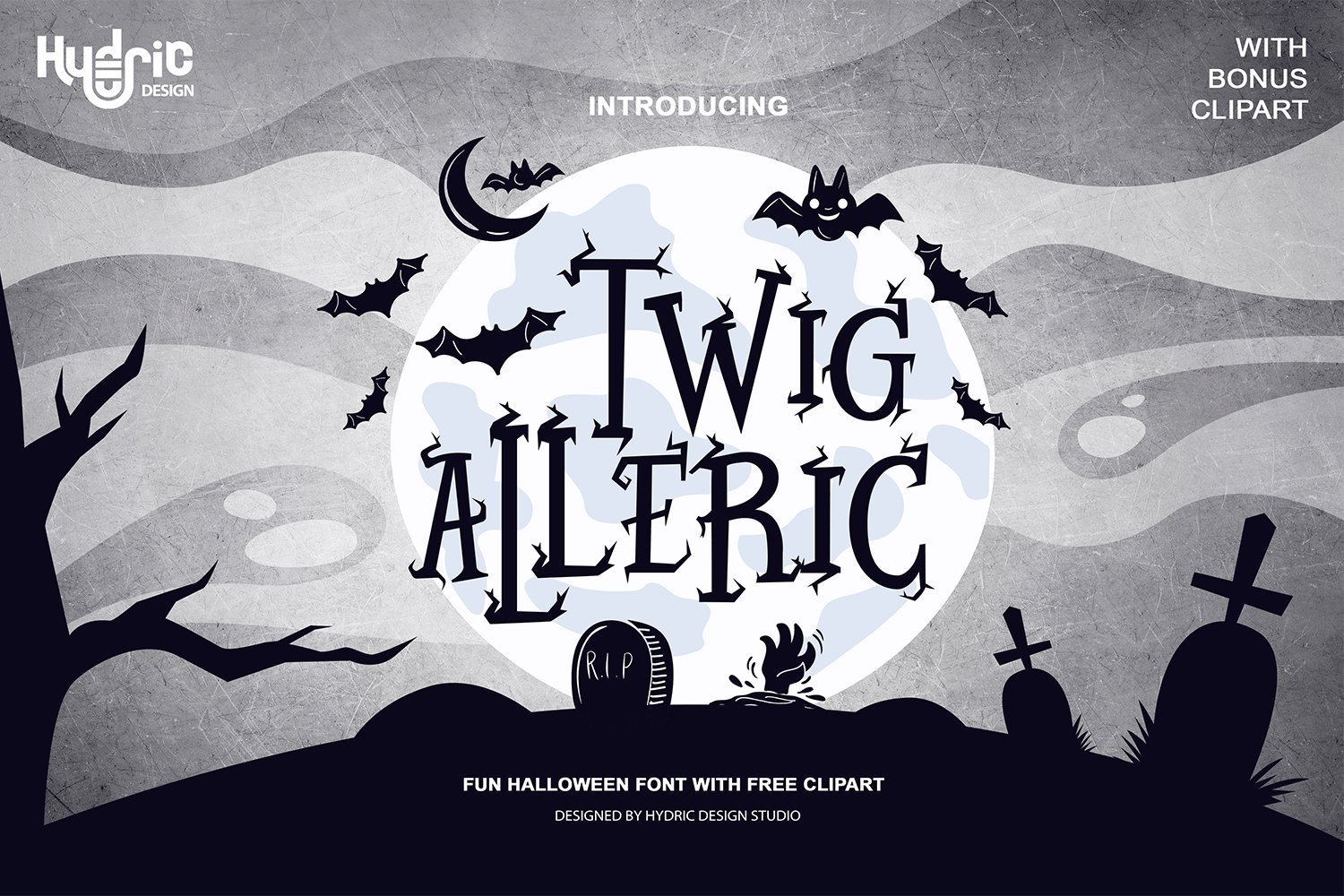
This font is a gothic display font with a Fantasy, Creepy & Mystical feel with lots of curly and sharp , this font inspired by twig of a dead tree and fantasy movies!
Twig Alleric offers you a scary and wicked atmosphere to your design projects.
Suitable for book/novel or movie title, logos & branding, social media posts, advertisements & product designs, etc.
6. The Midnight Minutes Font
Midnight Minutes is a gothic display font with a Fantasy, Creepy & Mystical feel with lots of curly and sharp elements inspired by horror and fantasy movies!
Midnight Minutes offers you a scary and wicked atmosphere to your design projects.
Suitable for book/novel or movie title, logos & branding, social media posts, advertisements & product designs, etc.
7. The Dragon Font